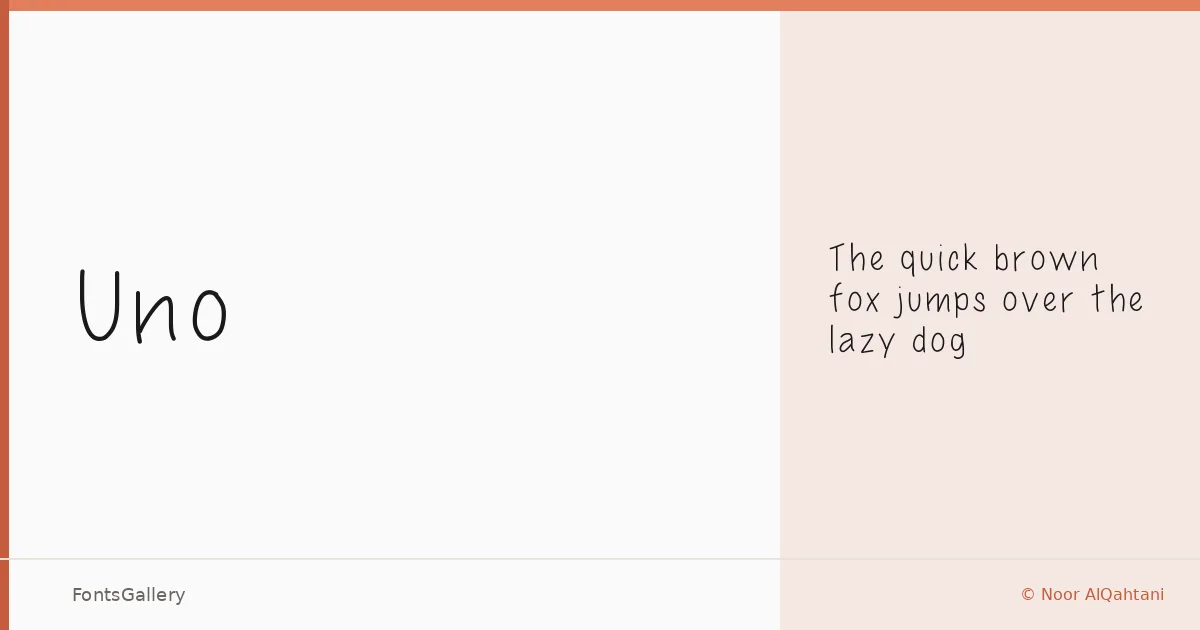
About Uno Font
There is a looseness to this script that feels intentional rather than accidental — the kind of handwritten rhythm that comes from a designer who has thought carefully about where to let a letterform breathe. Uno is the work of Noor AlQahtani, a single-weight handwritten family released as a Medium cut in TTF format.
The family sits in that particular zone where minimal restraint and whimsical energy coexist: strokes stay clean and modern, yet the overall texture feels warm and human rather than constructed. With just the one Medium weight, the design makes its case through character rather than range — the forms carry a playful confidence that reads well at display sizes without becoming noisy.
It earns its place on greeting cards, invitation layouts, and social media graphics where a hand-touched quality matters, and it has enough personality for children's book titling and branding work that wants to feel approachable rather than corporate. For contrast-based pairings, it sits well alongside the cool geometry of Helvetica or Abrade, and it balances nicely against the editorial warmth of Canela or Anglecia Pro; Aqua is another natural companion when the project calls for two scripts in conversation.